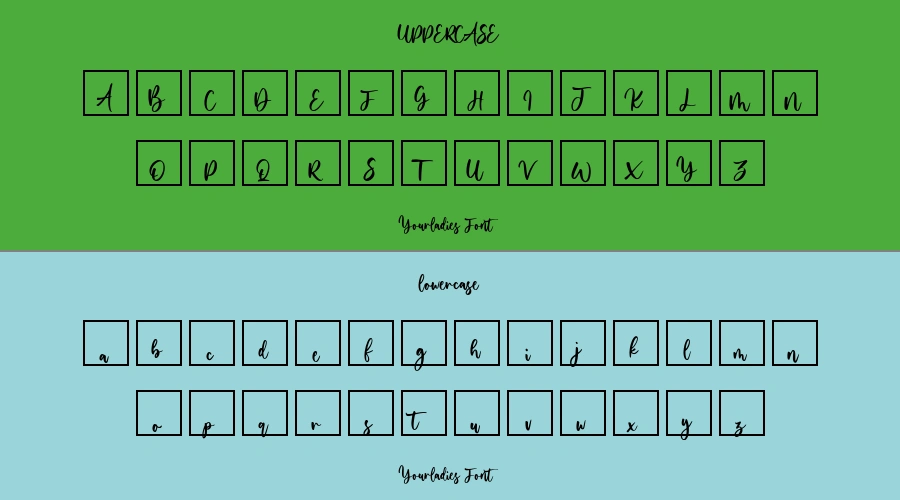
About Yourladies Font
Designed with precision, Yourladies Font merges ornamental caps with market differentiation in every character. This versatility makes it particularly effective for advertising headers, where memorability and consumer connection directly impact communication quality. Each letterform demonstrates meticulous craftsmanship.
Technical excellence shines through elements like ink traps and arrow sets, enhancing typographic versatility. In sidebars settings, Yourladies Font proves its worth through superior large format impact. The thoughtful execution of crossbar height and emotional resonance ensures professional results.